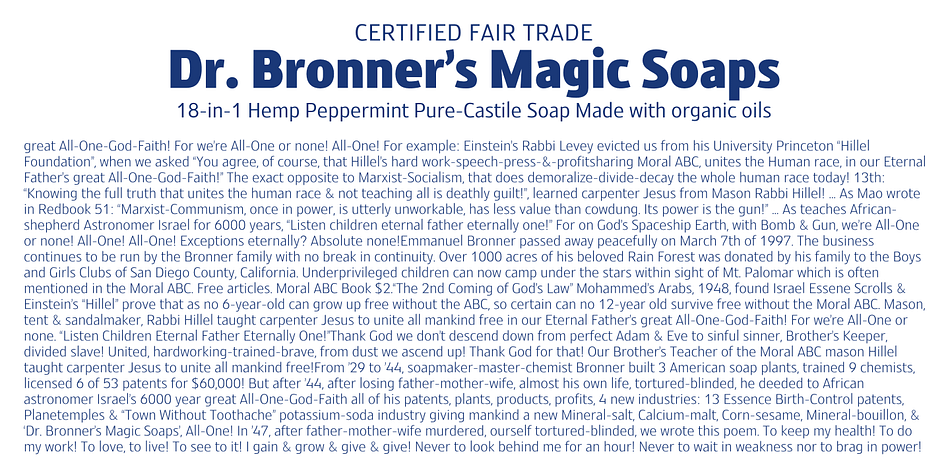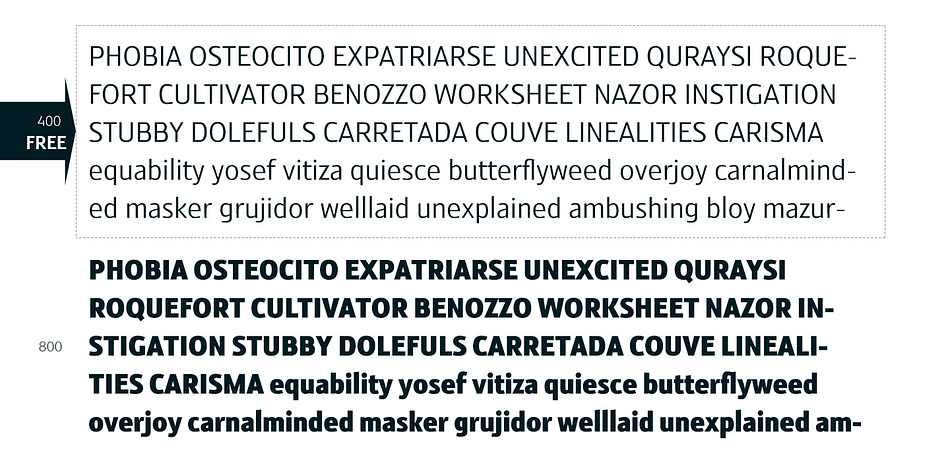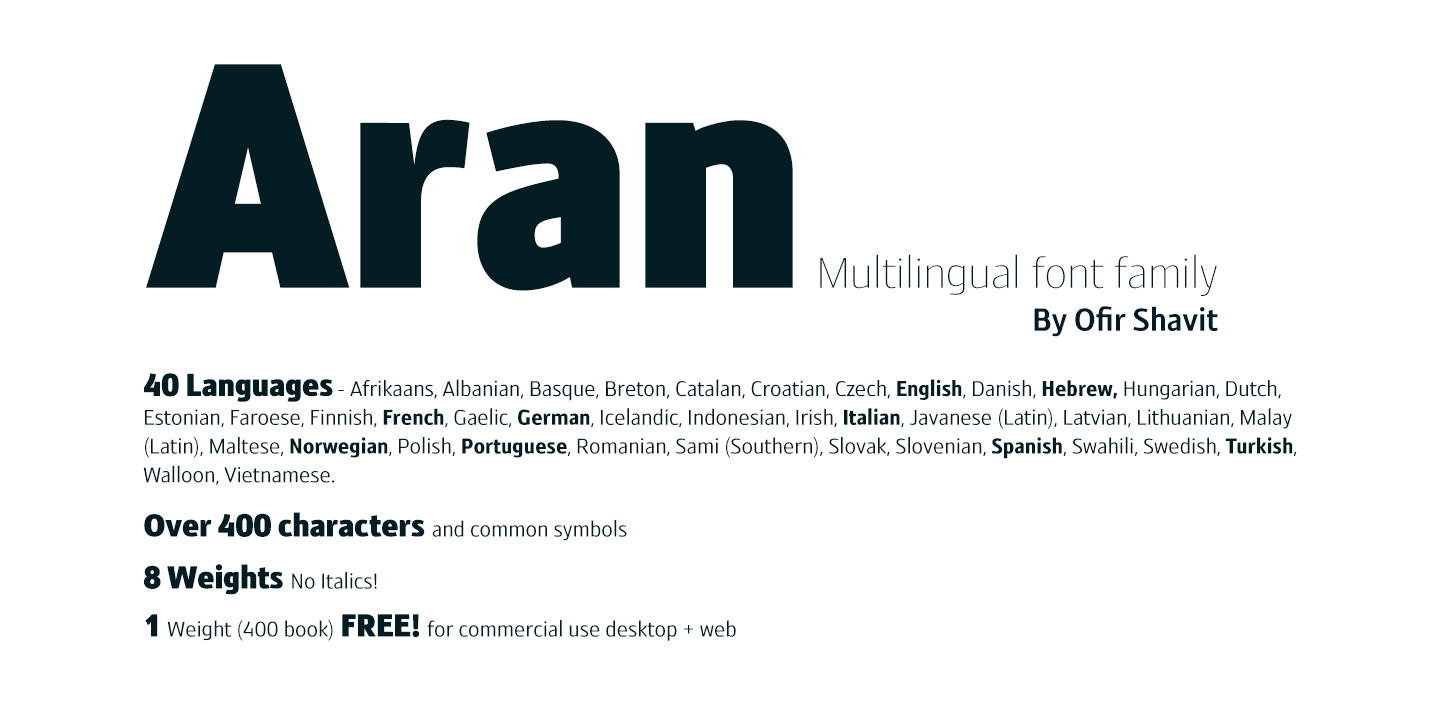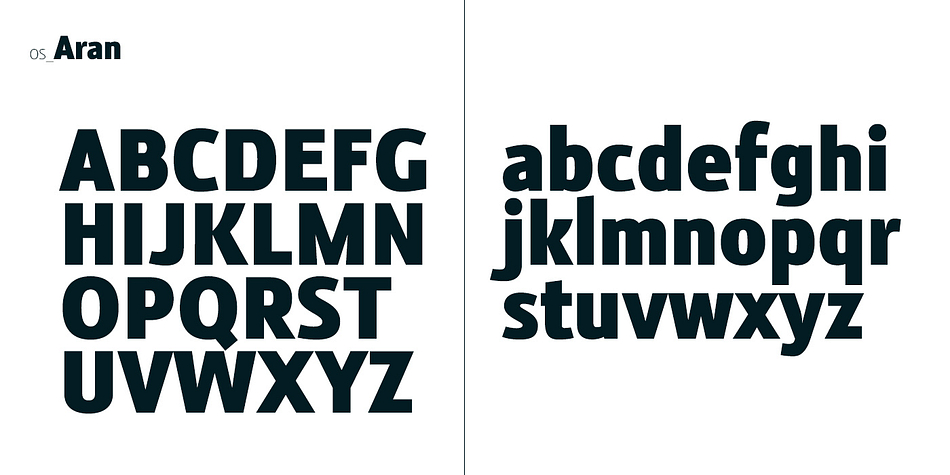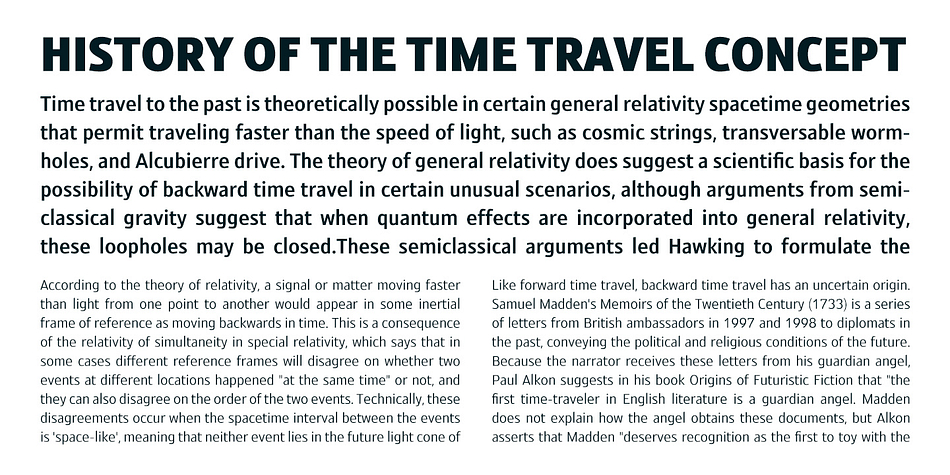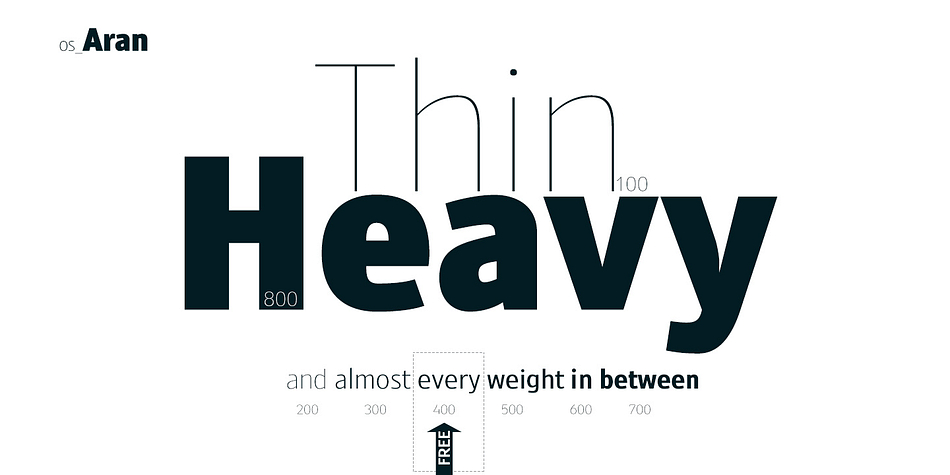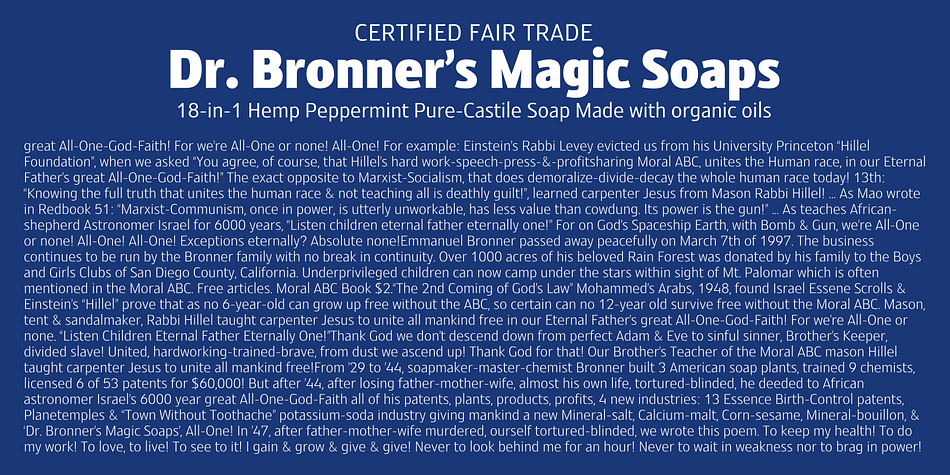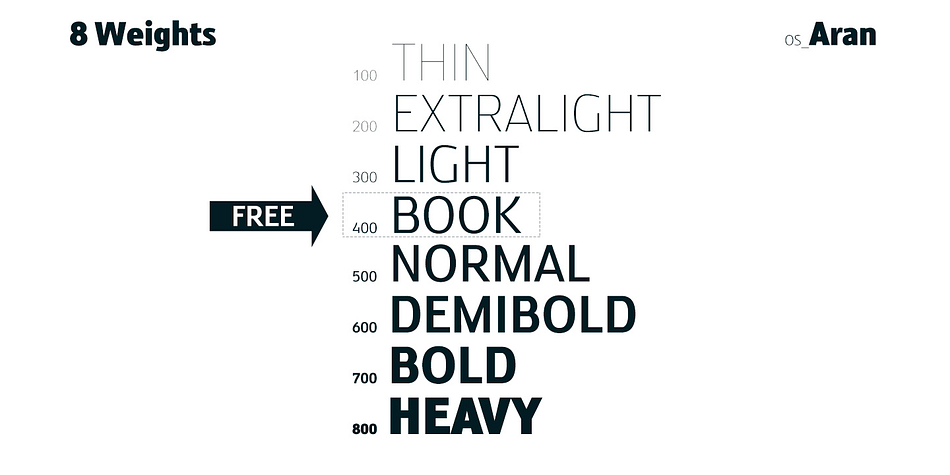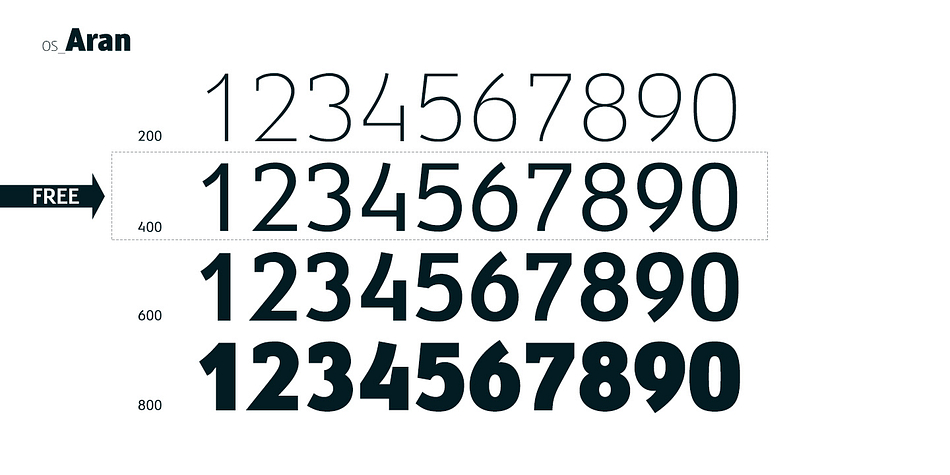
OS Aran is a sans serif font family. This typeface has eight styles and was published by OS type.
Aran typeface is an 8 weights sans-serif font family (No Italics). It is a Latin expansion of the successful Aran Hebrew typeface created a year earlier by Ofir Shavit from OS-Type. Supports eastern Latin languages and Hebrew.
Low contrast, a bit condensed, suitable for text and display. Very clean and non dominant appearance.